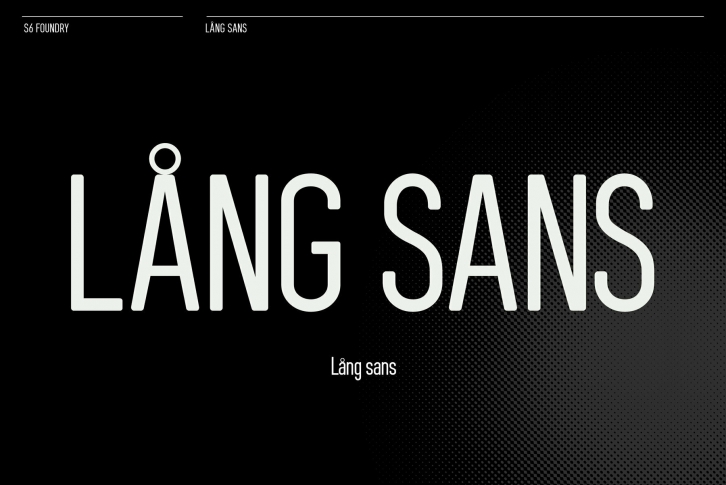
Lang Sans is an elegant contemporary condensed typeface with strong stylistic geometric, authentic contrasts, drawing on the aesthetics and representing the shifting contemporary aesthetics. The distinctive stance gives the right visual consistency for branding and communications. Lang Sans is perfectly suited for headlines, large-format prints, brand identities, social media, advertising, editorial design, posters, magazines, logos, headings, body copy, digital and more.